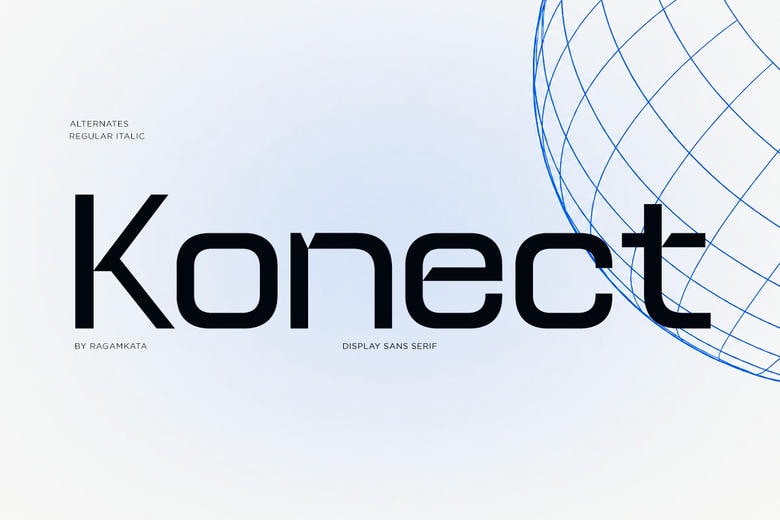
Koncet Font
Konect is a modern tech sans serif font made for creators who want to build bold and innovative visual identities. With its geometric shapes, clean lines, and sharp details, Konect brings a sleek, high-tech look that works well for digital brands, startups, gaming, AI, and tech-focused projects.
Konect comes in both Regular and Italic styles, so you can easily create dynamic and eye-catching typography. Its simple design and futuristic feel make it easy to read while still looking unique and high-quality in both print and digital formats.
You can use Konect for logos, branding, UI/UX, esports graphics, tech posters, packaging, social media, websites, YouTube thumbnails, motion graphics, editorial layouts, app interfaces, and futuristic presentations. Konect gives your projects a modern edge.
Koncet Sans Serif Font